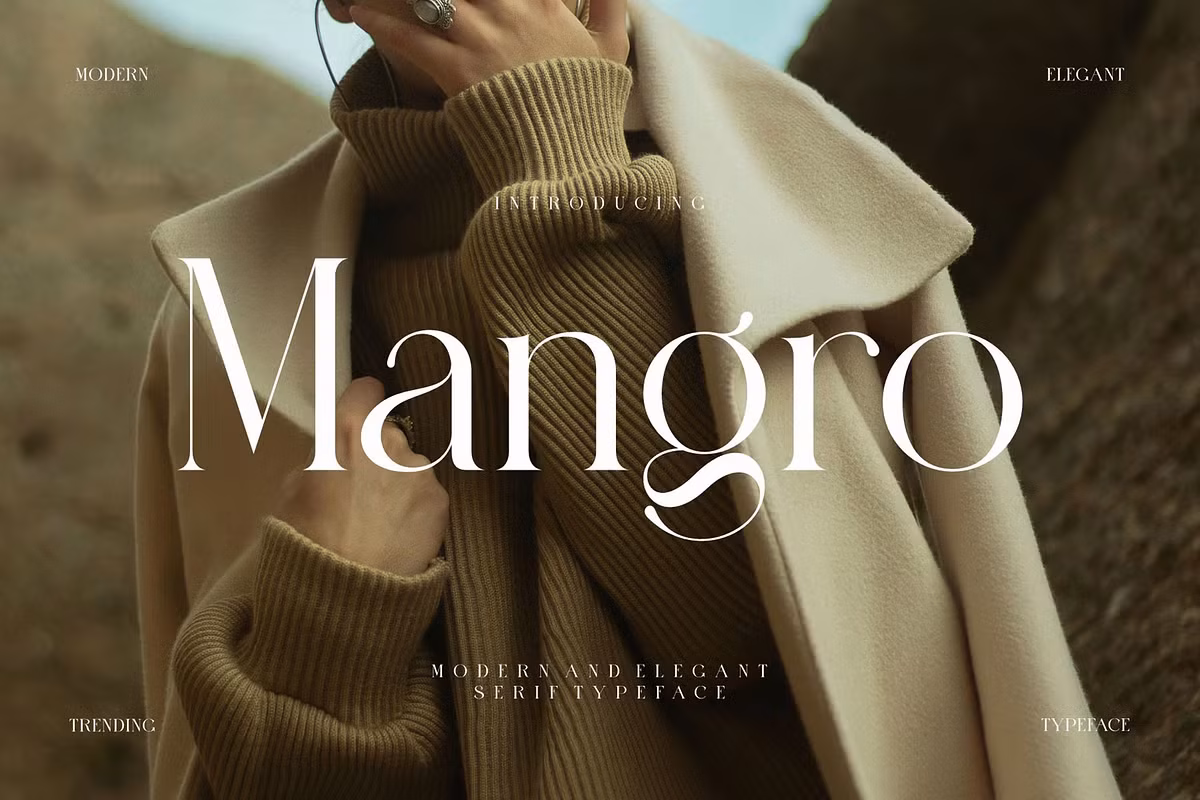
Mangro Elegant Serif Typeface Free Download
Mangro Elegant Serif Typeface Free Download is a modern and elegant ligature serif font inspired by minimalist logos, making it perfect for designing templates, brochures, videos, advertising branding, logos, invitations, layout designs, elegant crafting, beauty designs, and more.
This typeface offers a range of standard glyphs and international accents, ensuring versatility across various design projects. Its PUA-encoded characters allow full accessibility without additional design software, and it includes multilingual support.
Experience the sophistication of Mangro Elegant Serif Typeface Free Download in your personal projects. Its clean lines and refined ligatures will add a touch of elegance and modernity to your designs, making them stand out with a minimalist yet impactful aesthetic.